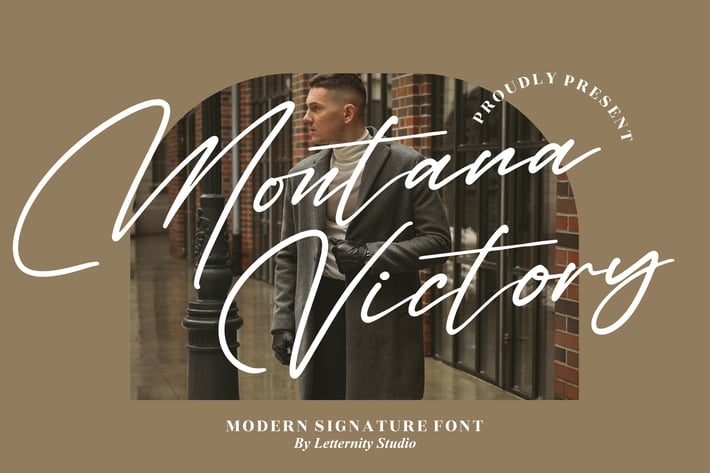
Montana Victory Modern Signature Font
Montana Victory is a bold modern signature font crafted with confident strokes and expressive flow, delivering a strong yet stylish handwritten character. Its dynamic curves and natural rhythm create an authentic, masculine, and premium feel—perfect for designs that want to stand out with personality and attitude.
Modern signature script with bold handwritten character
Natural flow with expressive strokes
Clean yet powerful letterforms
Branding & logo design
Personal signatures and name logos
Fashion, lifestyle, and streetwear projects
Social media graphics and promotions
Posters, quotes, and creative headlines
Where confidence meets modern elegance — a signature font made to leave a strong impression.*